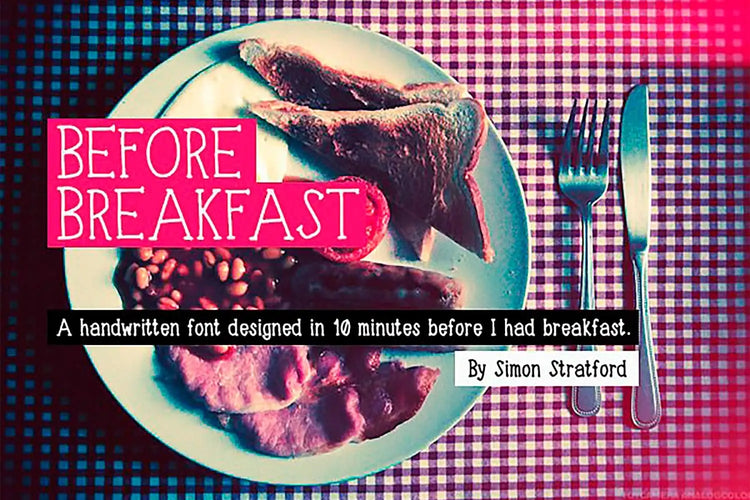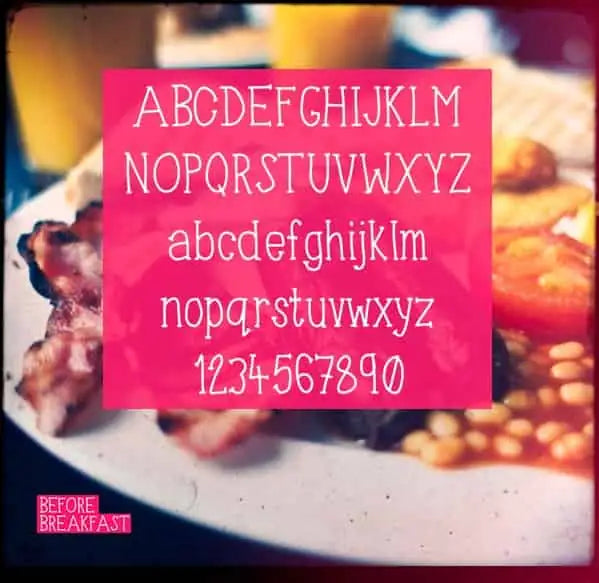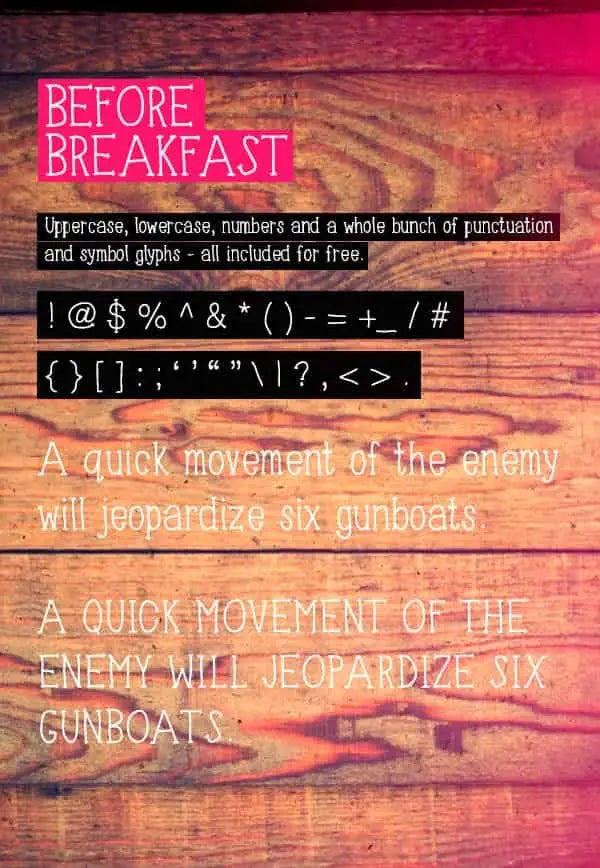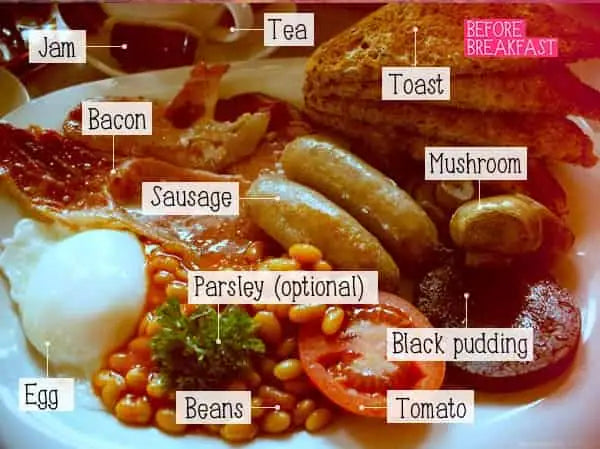
Before Breakfast — Handwritten Display Serif Font
About Before Breakfast
Before Breakfast typeface, a hand-drawn font created in 10 minutes on my iPad. It only has one style, and that is regular—In total, it has over 300 glyphs.
The inspiration for this font struck me during a little personal challenge: to craft a font within the constraints of a 10-minute window. Armed with just my iPad and a rumbling tummy, I had a clear goal in mind. The quicker I wrapped it up, the sooner I'd savour my morning meal. And that, my friends, is how Before Breakfast earned its simple and straightforward name!
It was a whirlwind process where spontaneity and inspiration collided. There was no time for perfection; instead, I embraced the quirks and imperfections that emerged.
It's a font born of morning inspiration and fueled by caffeine.
It's the kind of font you'd want to have a cup of coffee with before you dive into your day – relaxed, approachable, and full of character (pun intended).
If Font Before Breakfast were a celebrity
If Font Before Breakfast were a celebrity, it would be the spontaneous and unconventional comedian Robin Williams. Just as Robin Williams was known for his lightning-fast wit and ability to improvise Before Breakfast font captures the essence of spontaneity and creativity.